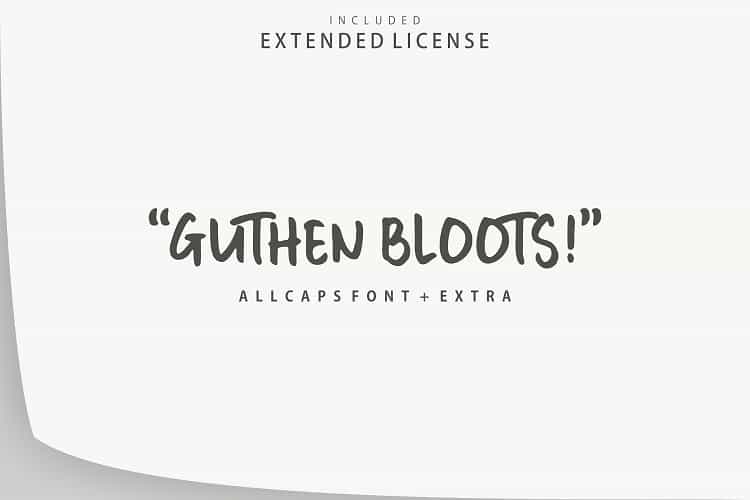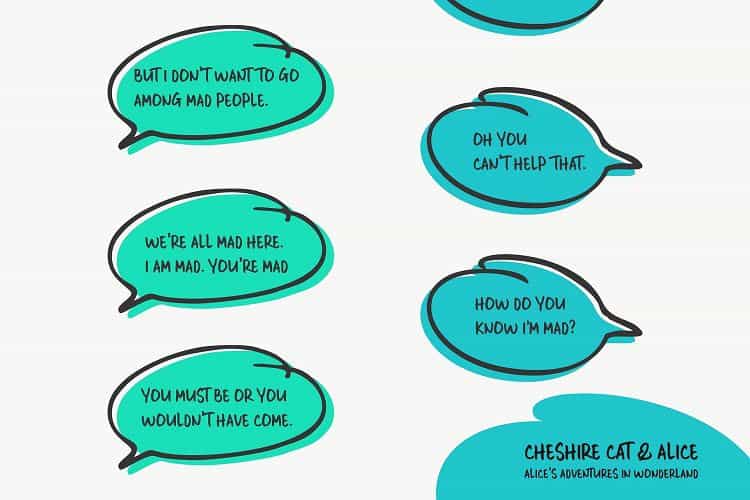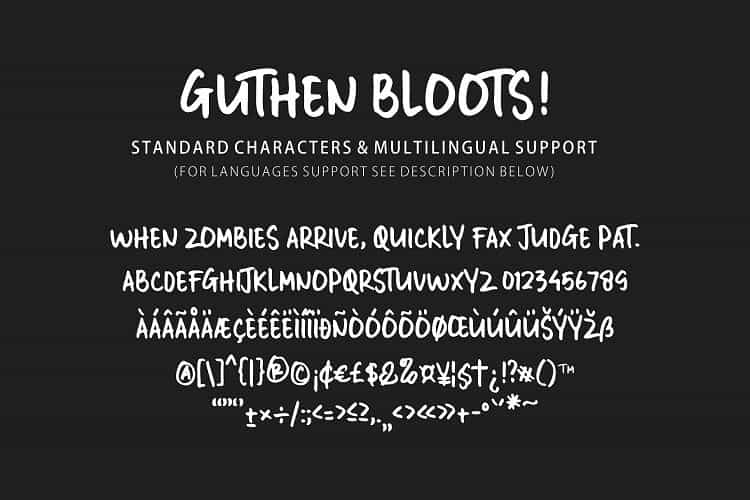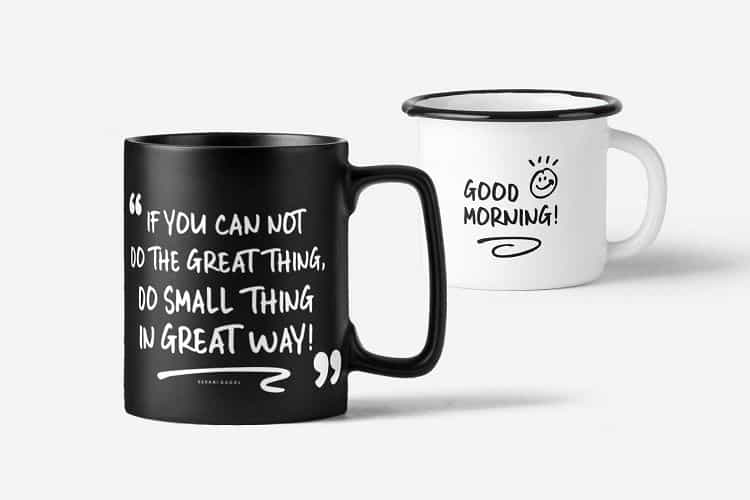
Discover Guthen Bloots Allcaps Font, part of the Brush Display Comic collection—a versatile and unique font perfect for adding a personal touch to your projects. Download it for free and enjoy crafting designs with style, from invitations to social media posts. This font is available exclusively for personal use, giving you the freedom to create without limits. Unlock your creativity with Guthen Bloots Allcaps Font today!
Introducing Guthen Bloots Font. Guthen Bloots is designed and shared by Azetype. This font was created with a perfect balance of the characters. You are the answer to all your project requirements.